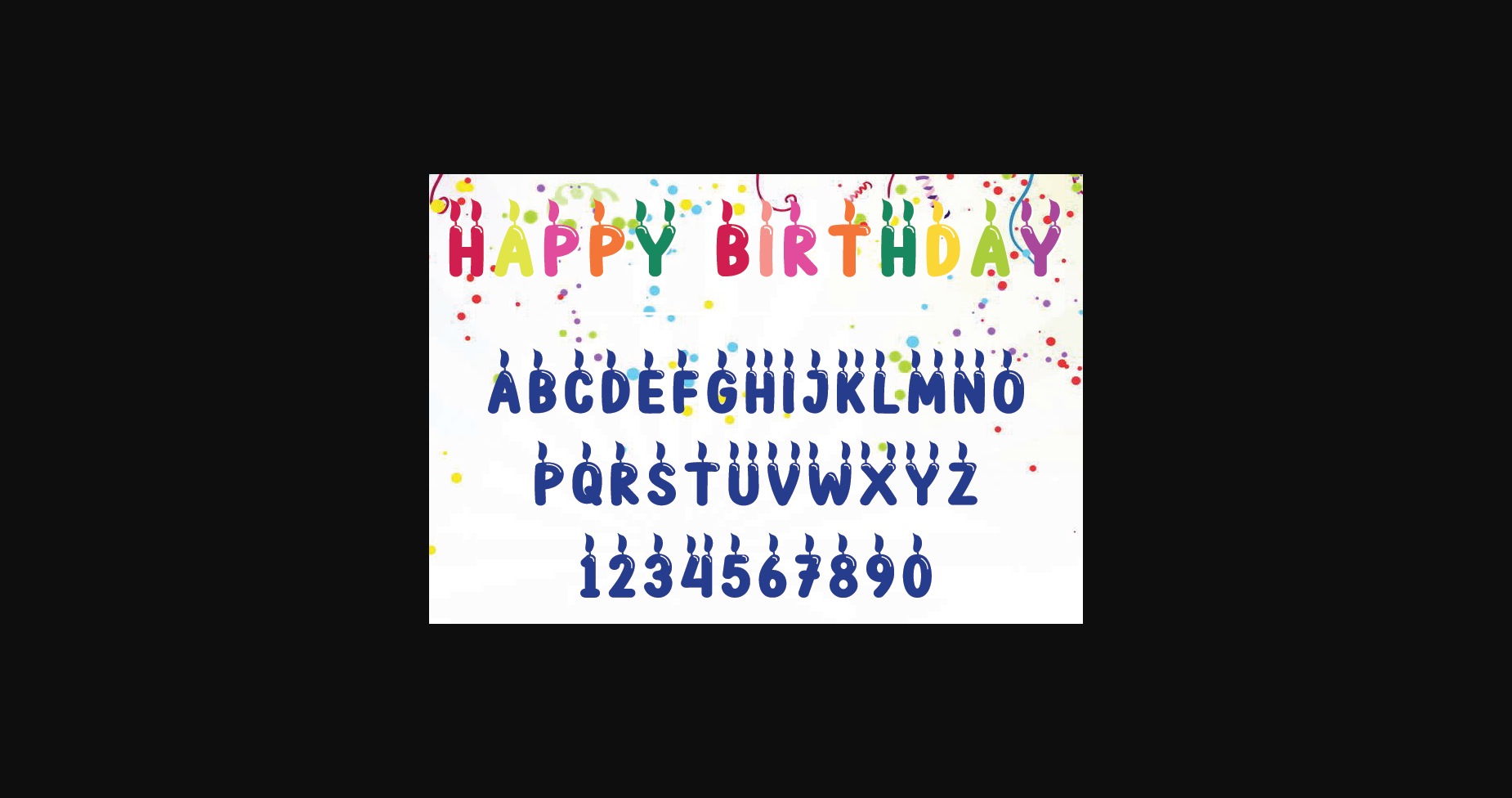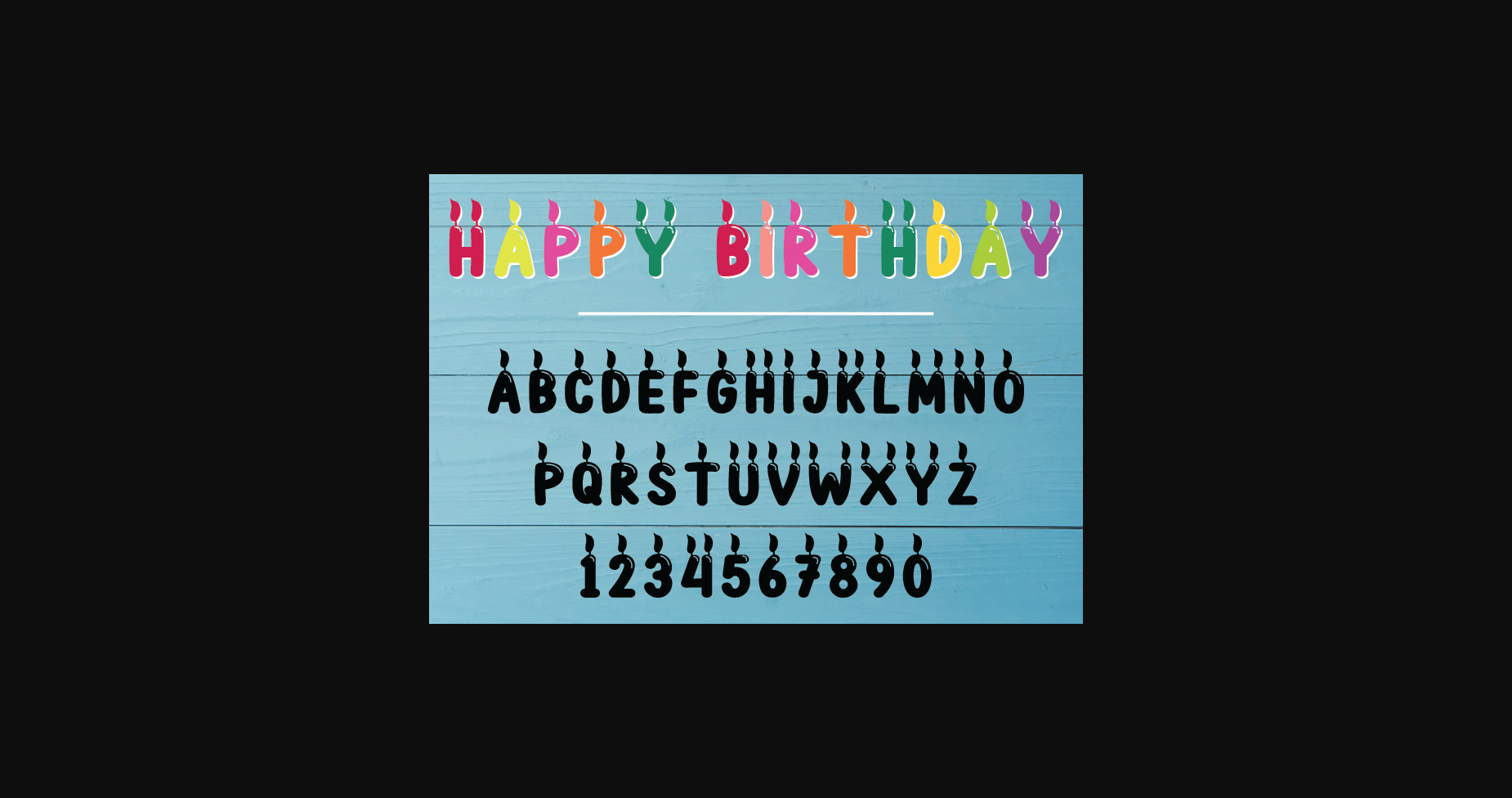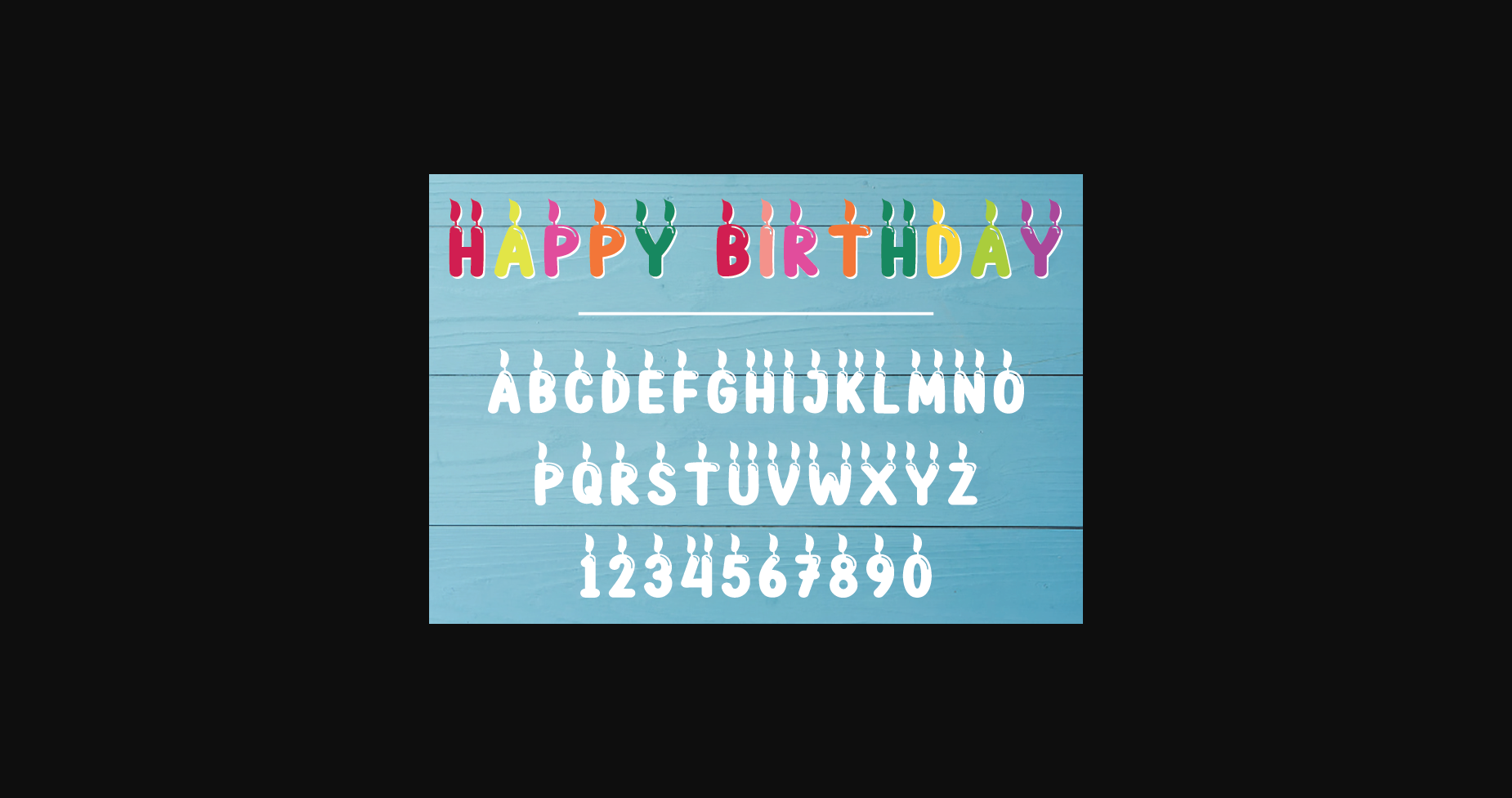
HomeSans Serif FontsHappy Birthday Font Sans Serif Fonts Happy Birthday Font FacebookXPinterestWhatsApp 1 of 5 ... Happy Birthday Font Poster 2... Happy Birthday Font Poster 3... Happy Birthday Font Poster 4... Happy Birthday Font Poster 5... About Happy Birthday Font Happy Birthday is a powerful sans-serif font. This font has the potential to bring each of your master ideas to the highest level. You can use your font in any of your creative projects. DOWNLOAD NOW People also explored Amorra Script Darbots Font Red Grape Font Night Club Font Itadakimase Duo Font Hillya Font Old German Font Pasopati Font Arletta Font 324 0 TagsHappy Birthday Font Previous articlePrecedence FontNext articleAregia Font LEAVE A REPLY Cancel reply Comment: Please enter your comment! Name:* Please enter your name here Email:* You have entered an incorrect email address! Please enter your email address here Website: Save my name, email, and website in this browser for the next time I comment. Personal Use Free Quentin Personal Use Free Read more about this font Shelly Personal Use Free Read more about this font Fifteenth Century Personal Use Free Read more about this font Whitelight Personal Use Free Read more about this font BLOG Free Fonts Risk: Why Free Fonts Can Be Dangerous for Designers Free Fonts Risk: Why Free Fonts Can Be Dangerous for Designers Using free fonts is a common practice in web and graphic design. However, the... Where to Buy American Fonts Online in 2024 Fonts That Capture the Spirit of New York City Transform Your Website: Elevate Your Typography with 7 Best Web Font Generators